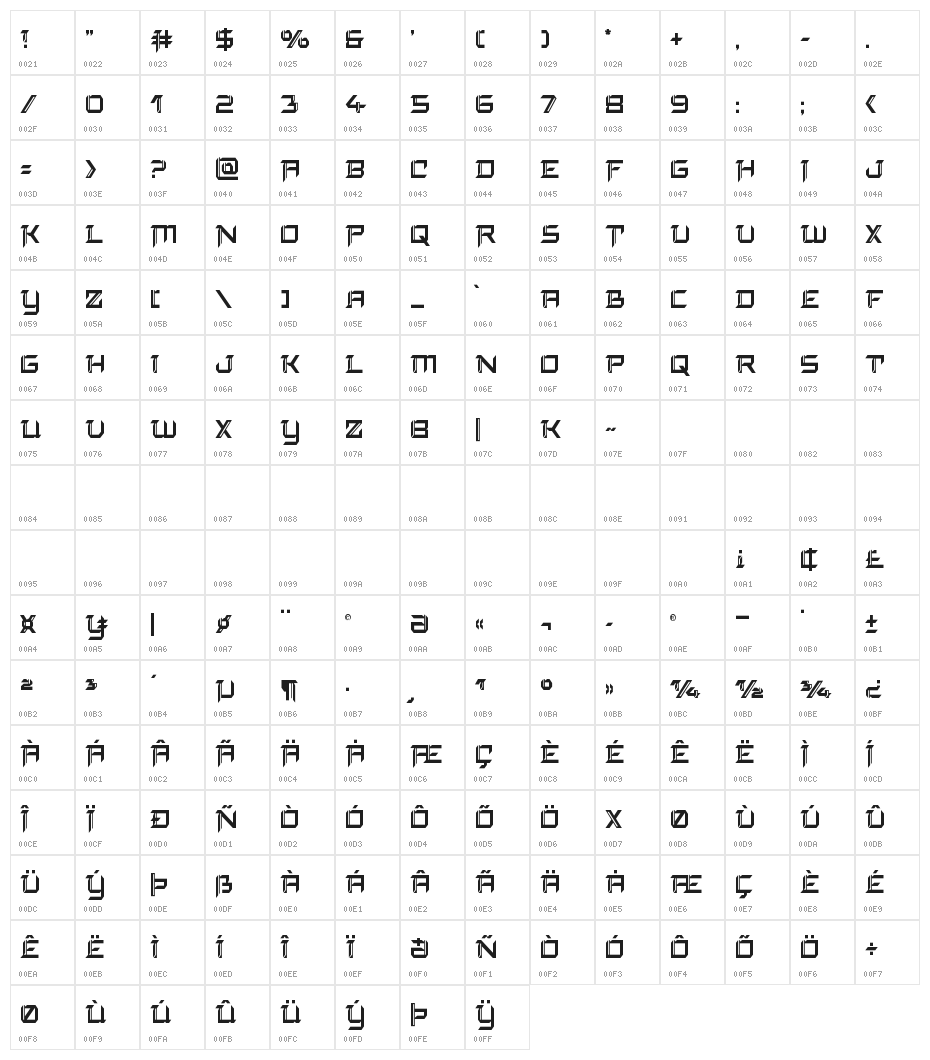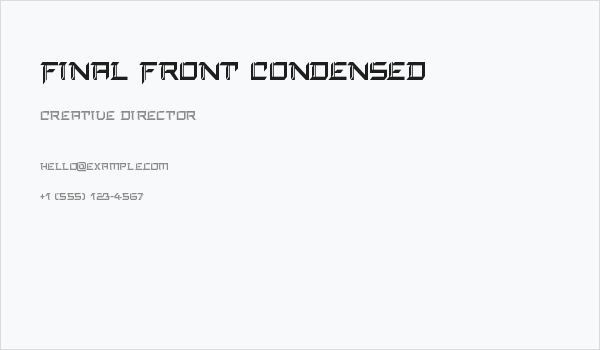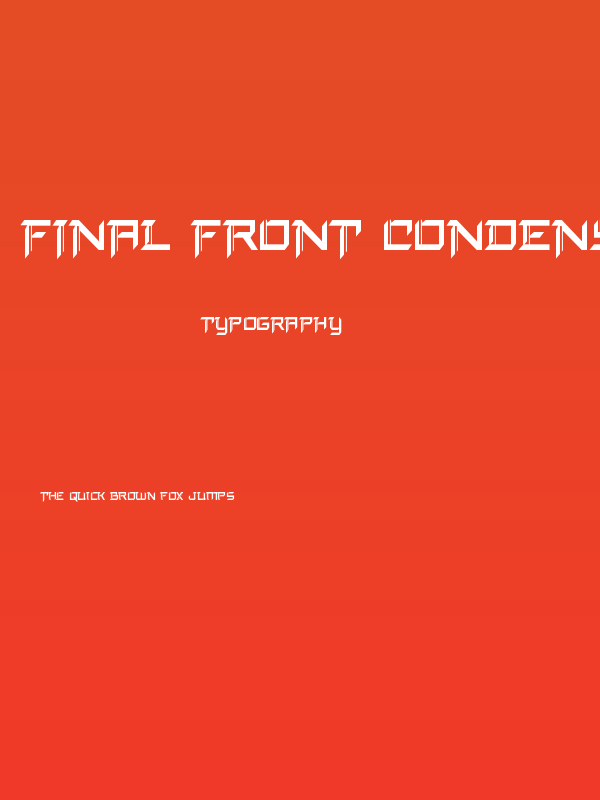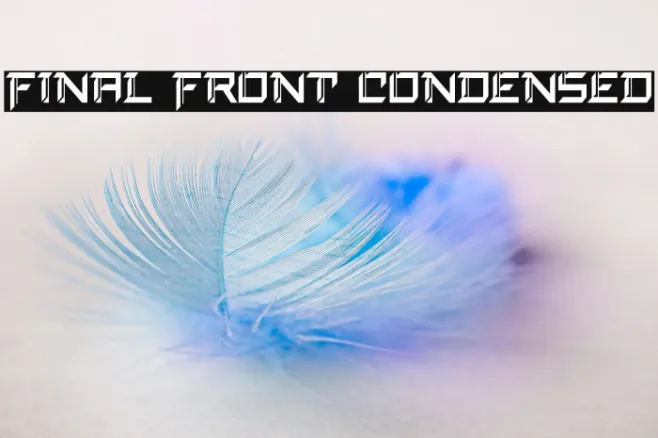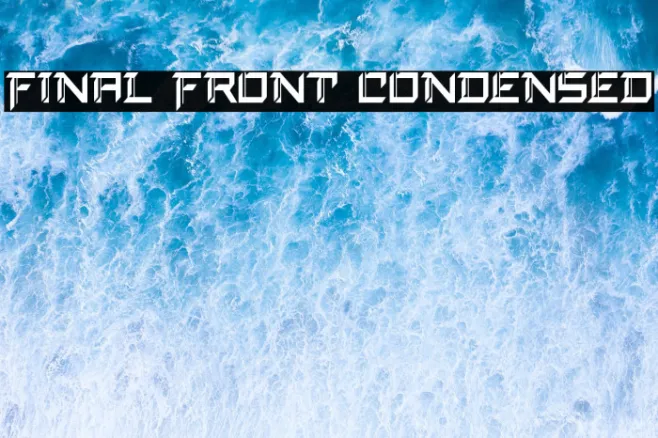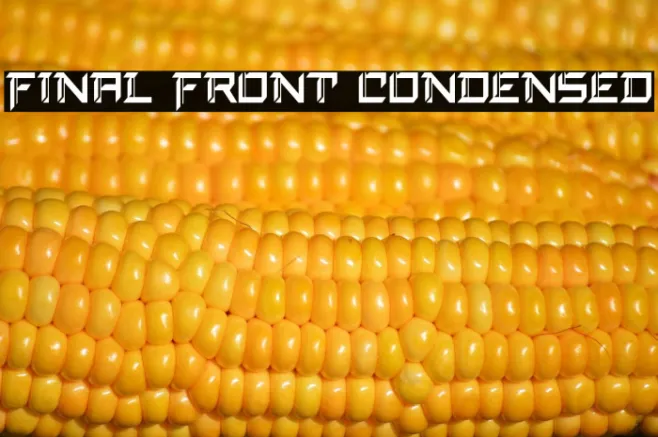
Final Front Condensed Font
Final Front Condensed Description
This font features a bold, geometric design with sharp angles and a futuristic aesthetic. The characters are constructed with a combination of solid and negative spaces, creating a dynamic and visually striking appearance. The uppercase and lowercase letters maintain a consistent style, with each character exhibiting a unique angular cut that adds to the overall modern feel. The numbers and special characters are designed in the same style, ensuring uniformity across all glyphs. This font's condensed width and bold weight make it ideal for impactful headlines and display purposes.
| Proposed Projects | Ideal for sci-fi themed designs, video game titles, tech branding, and futuristic posters. |